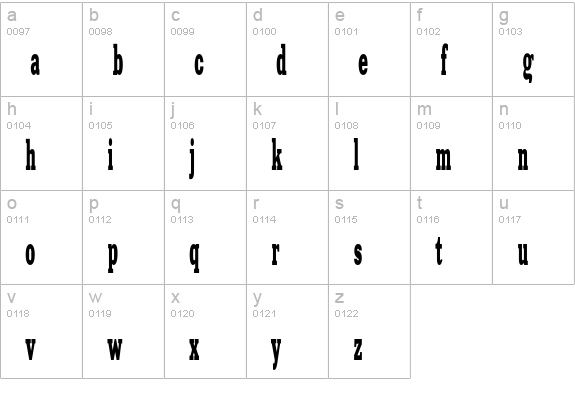
PT XeniaWestern Cyrillic Font Details
PT XeniaWestern Cyrillic font is a beautifully crafted typeface that exudes elegance and sophistication. Its intricate Cyrillic characters are designed with precision and style, making it perfect for various design projects. This font is not only aesthetically pleasing but also versatile, suitable for both formal and creative applications. Its classic yet modern look will surely make your designs stand out. The best part is, PT XeniaWestern Cyrillic font is available for free download at FontsMarket.com. So go ahead and enhance your projects with this stunning typeface today!